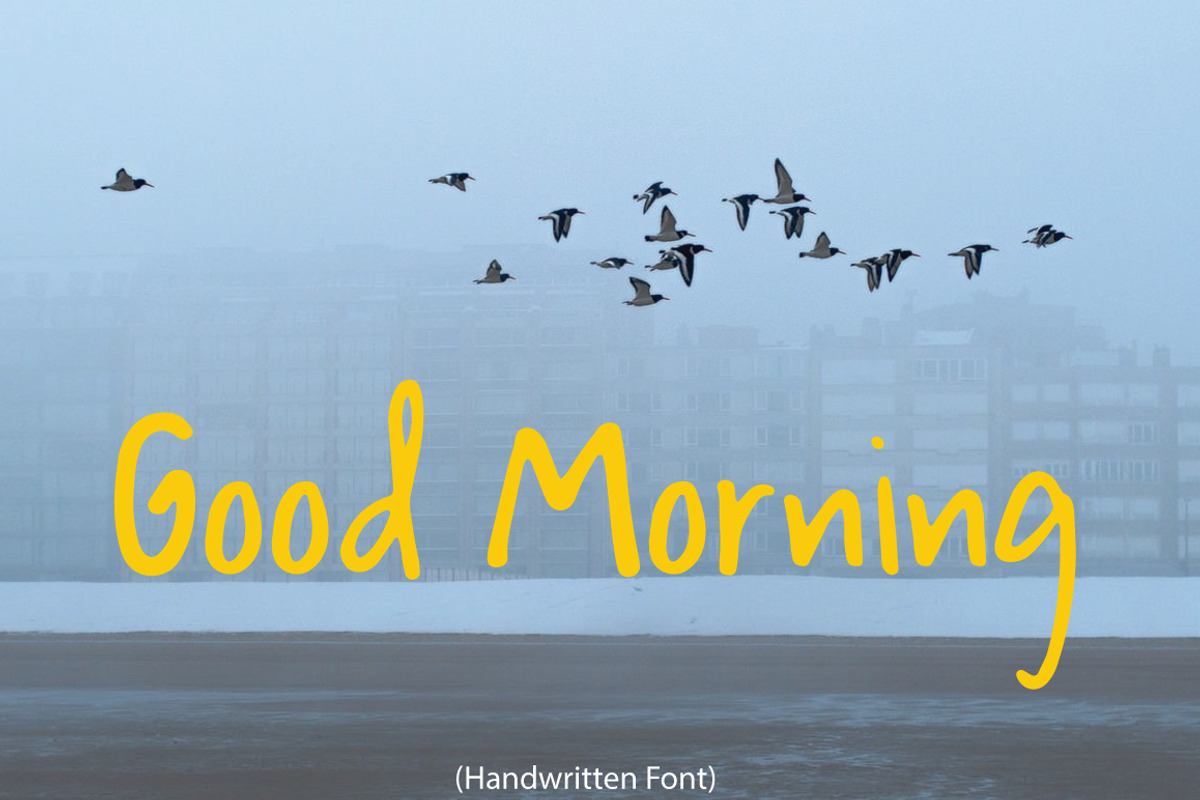
Good Morning Handwritten Font Free Download
Start your designs with a smile using Good Morning Handwritten Font Free Download — a friendly and warm typeface inspired by the charm of everyday handwriting. With its soft curves and cheerful personality, this font is perfect for lifestyle branding, greeting cards, blog headers, planner designs, and cozy social media content.
Good Morning feels like a handwritten note waiting on your breakfast table — sincere, simple, and full of positive vibes. The font includes uppercase and lowercase letters, numbers, punctuation, and multilingual support, making it versatile for any lighthearted design.